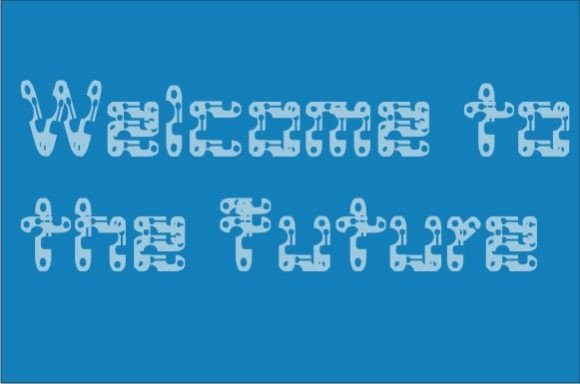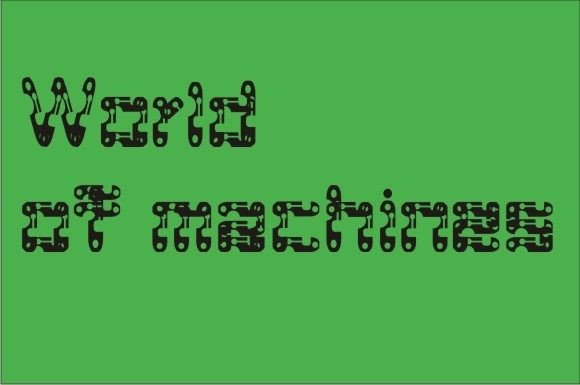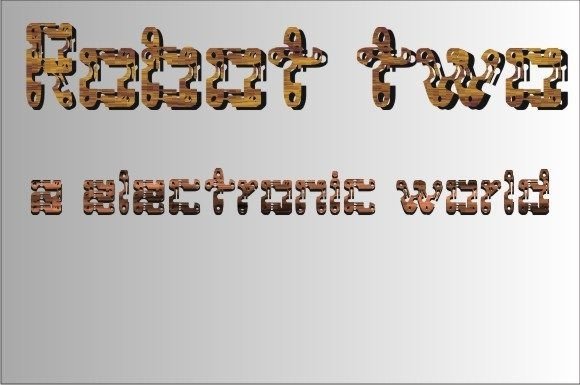
Introduction to Robot Two Font
Robot Two is a fun and futuristic display font.
Whimsical and a bit quirky, this font will brighten up each of your designs Add it confidently to your projects, and you will love the results.
Key Features of Robot Two Font
Why Choose Robot Two Font?